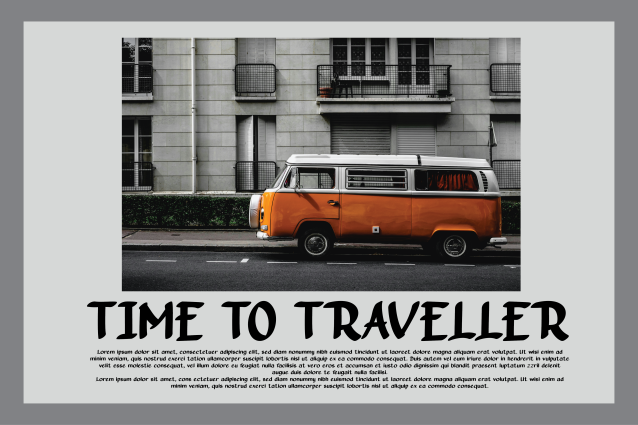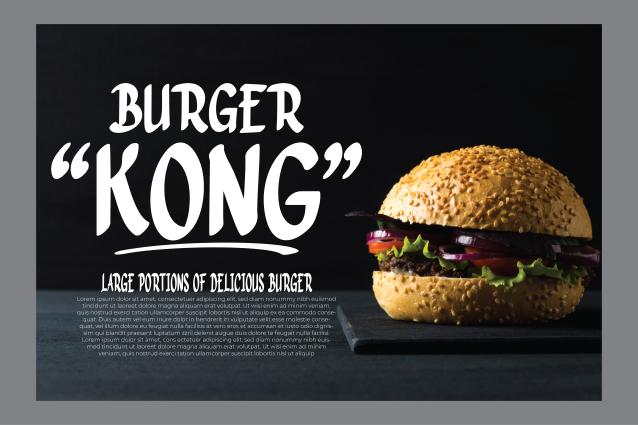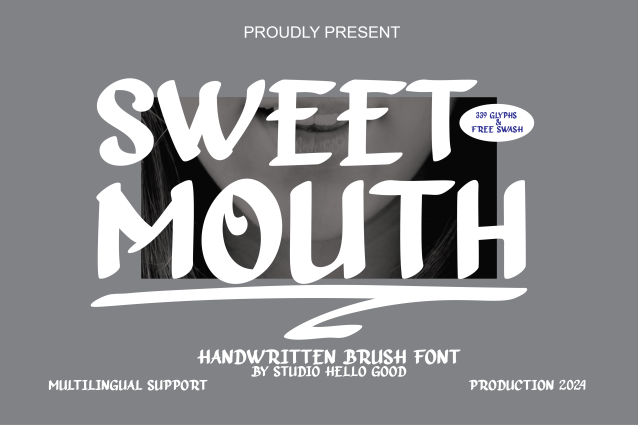
Sweet Mouth Font
Sweet Mouth Font inspired by brush lettering-style typography. This font is perfect for a design that makes it more attractive and playful. It was made with a very good level of aesthetics, making this font suitable for a book cover, poster, packaging, merchandise, logotype, and much more.